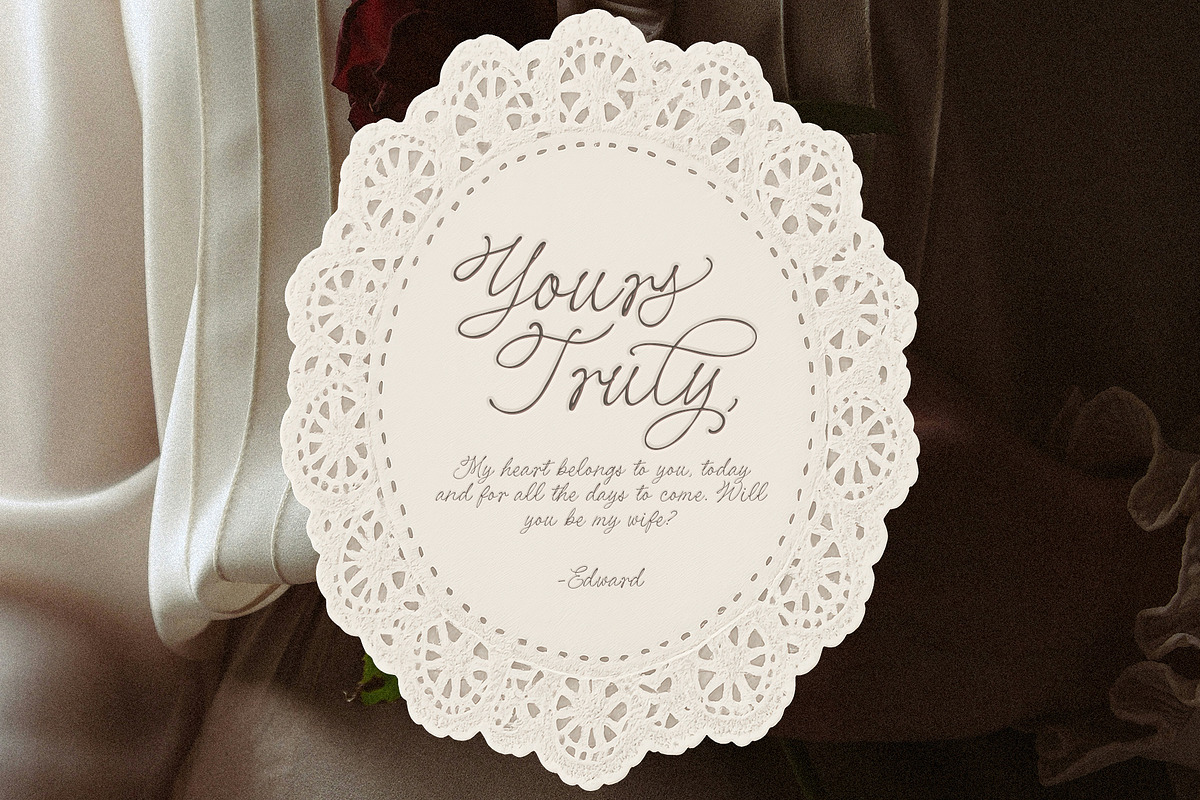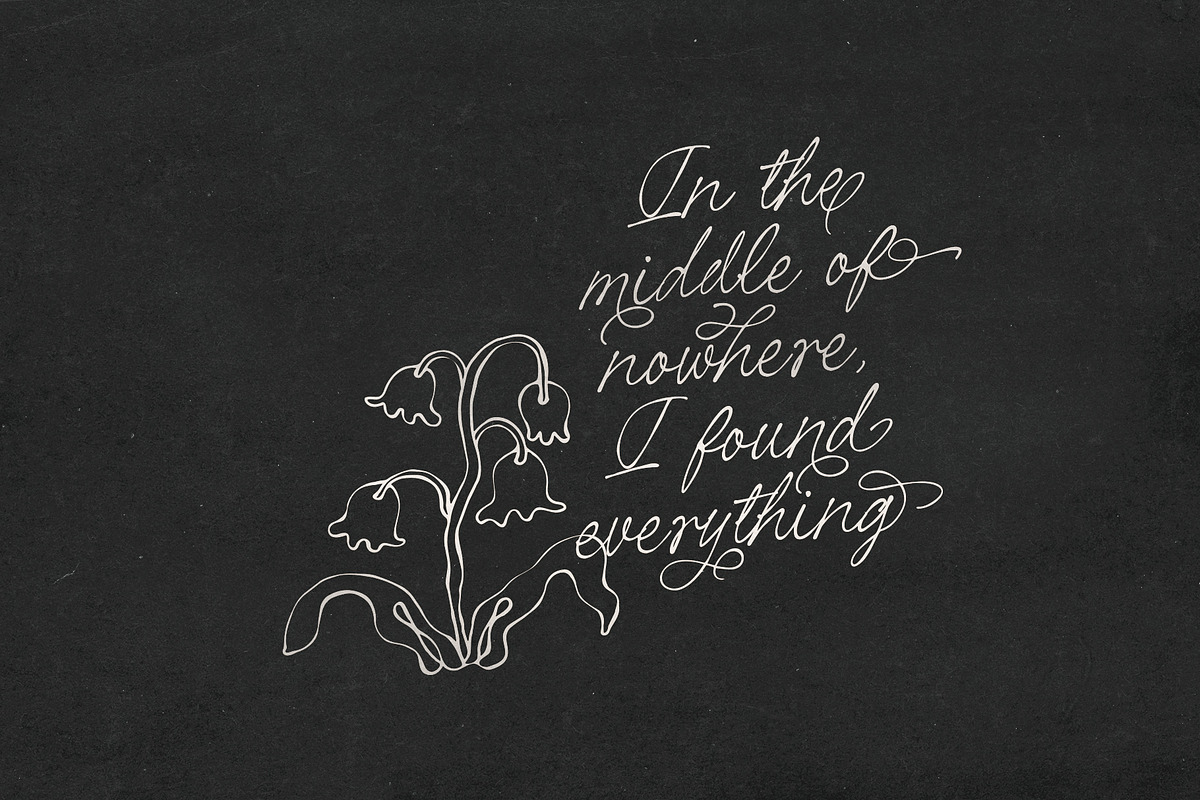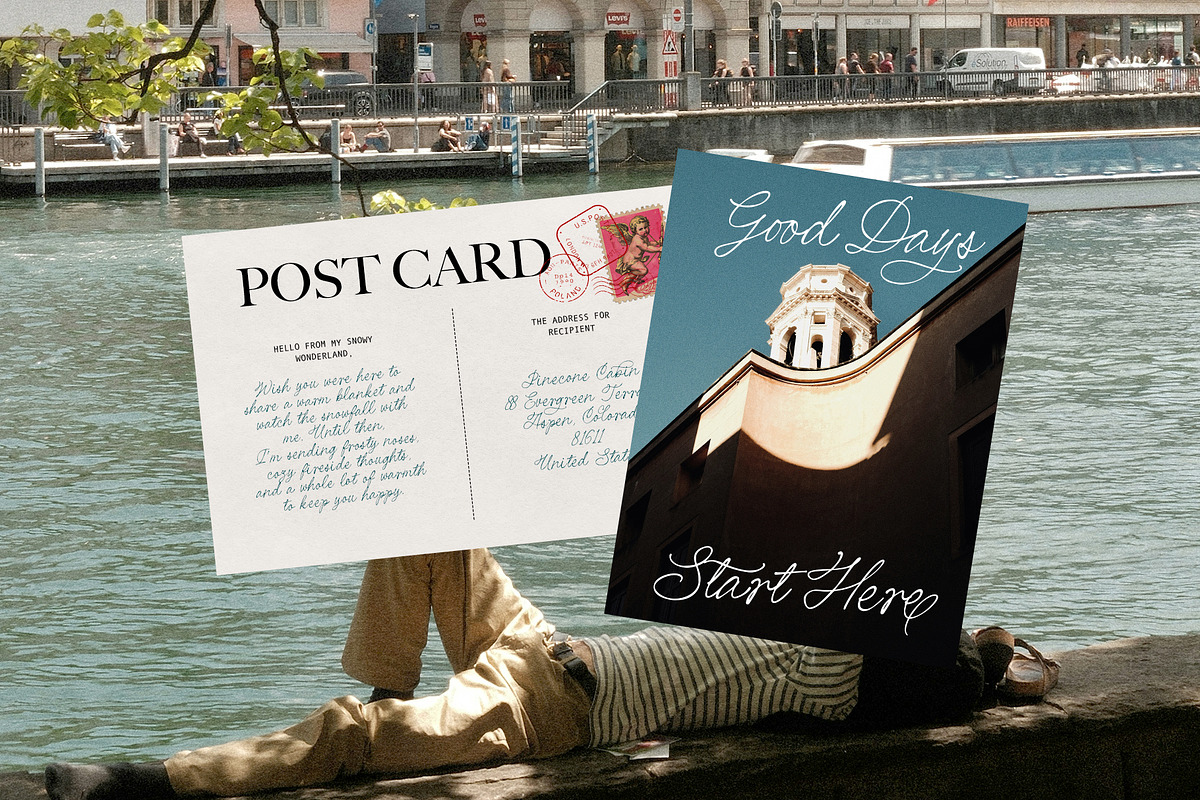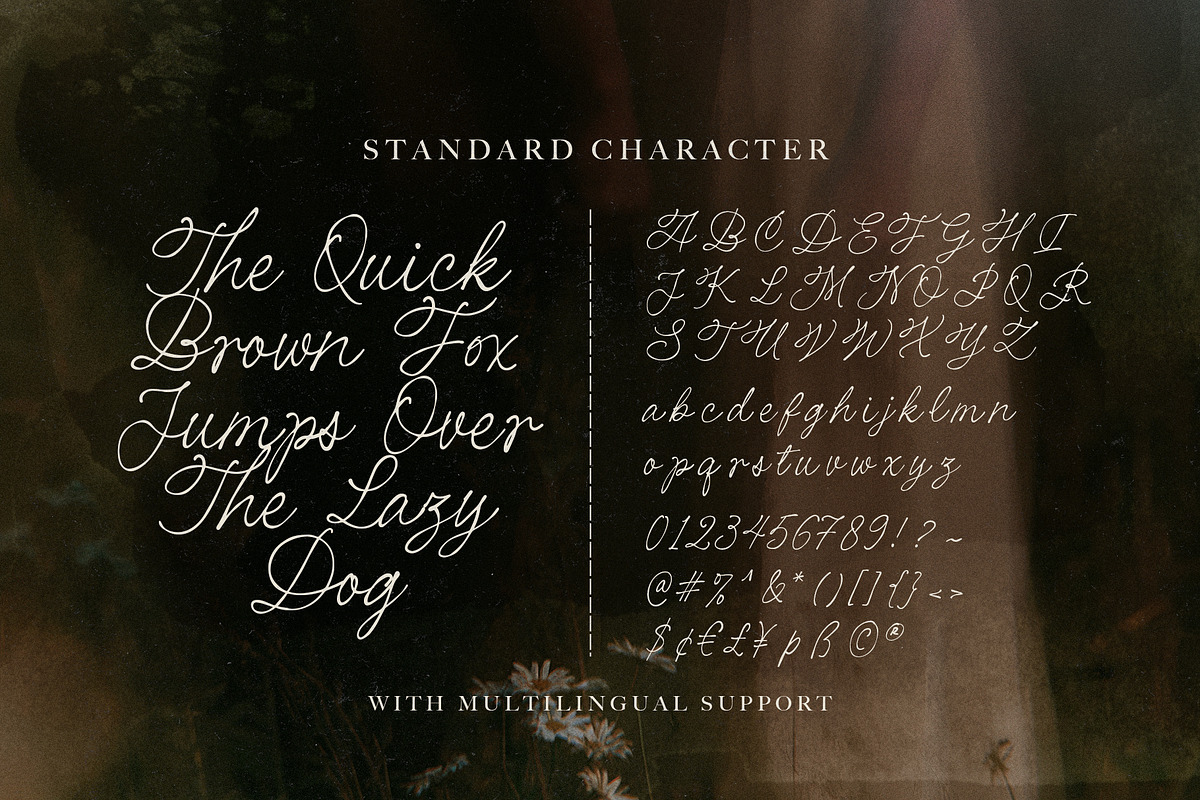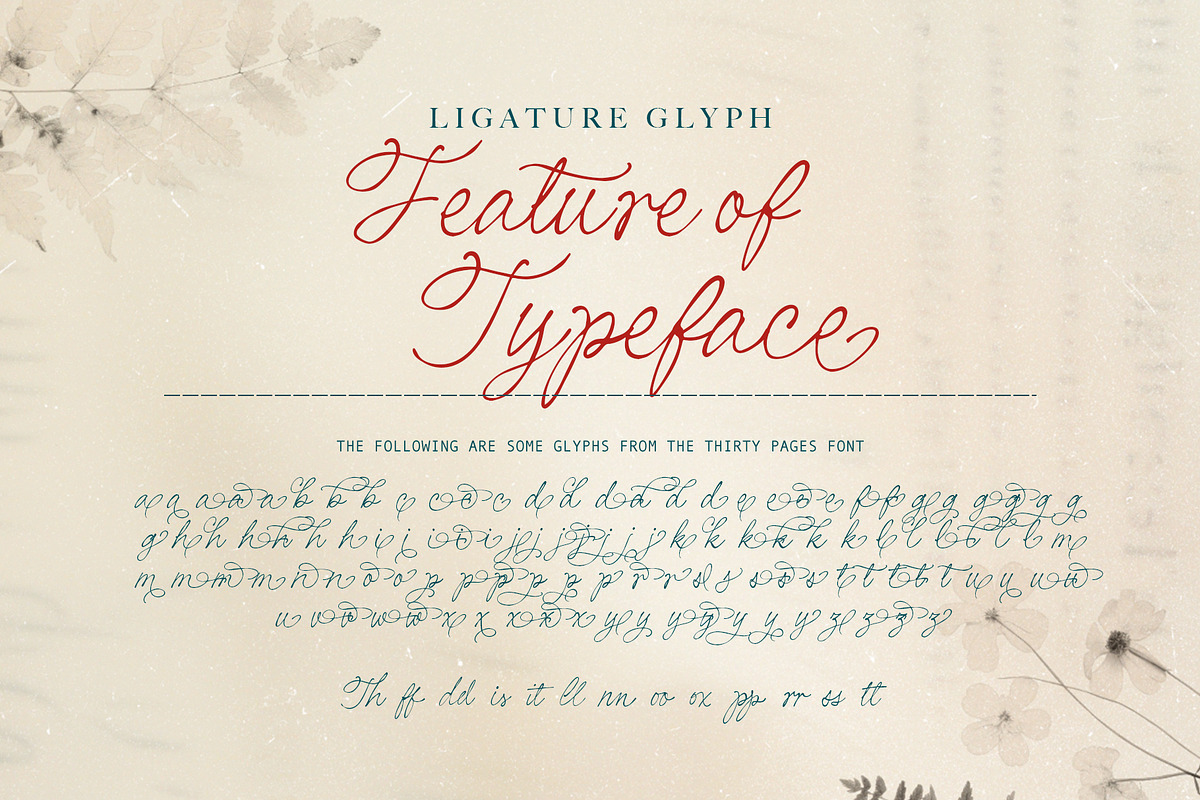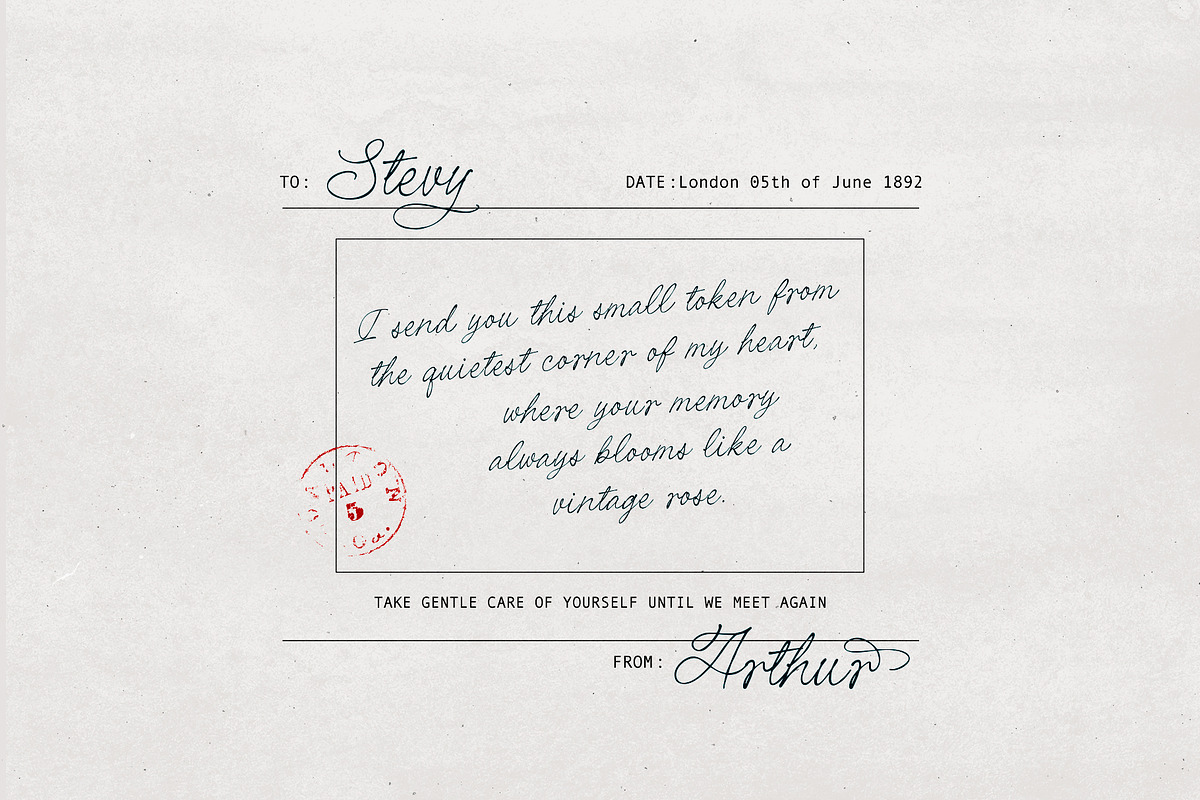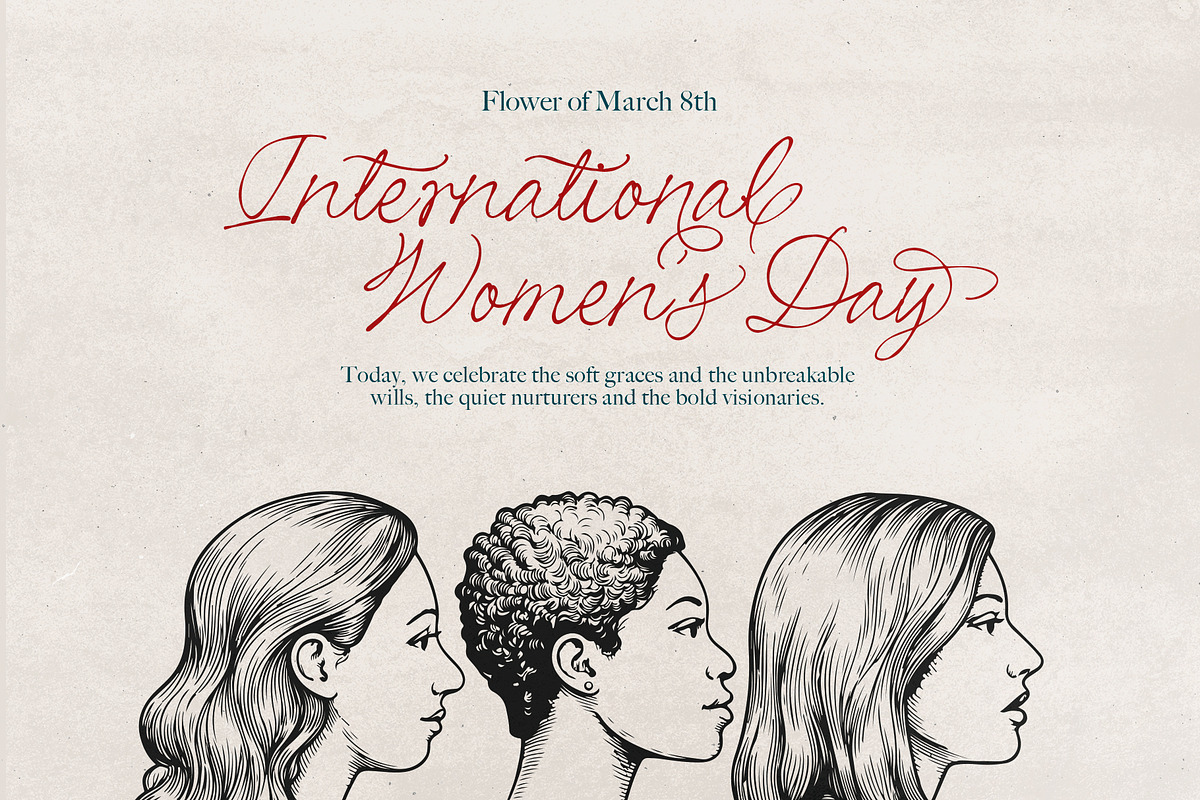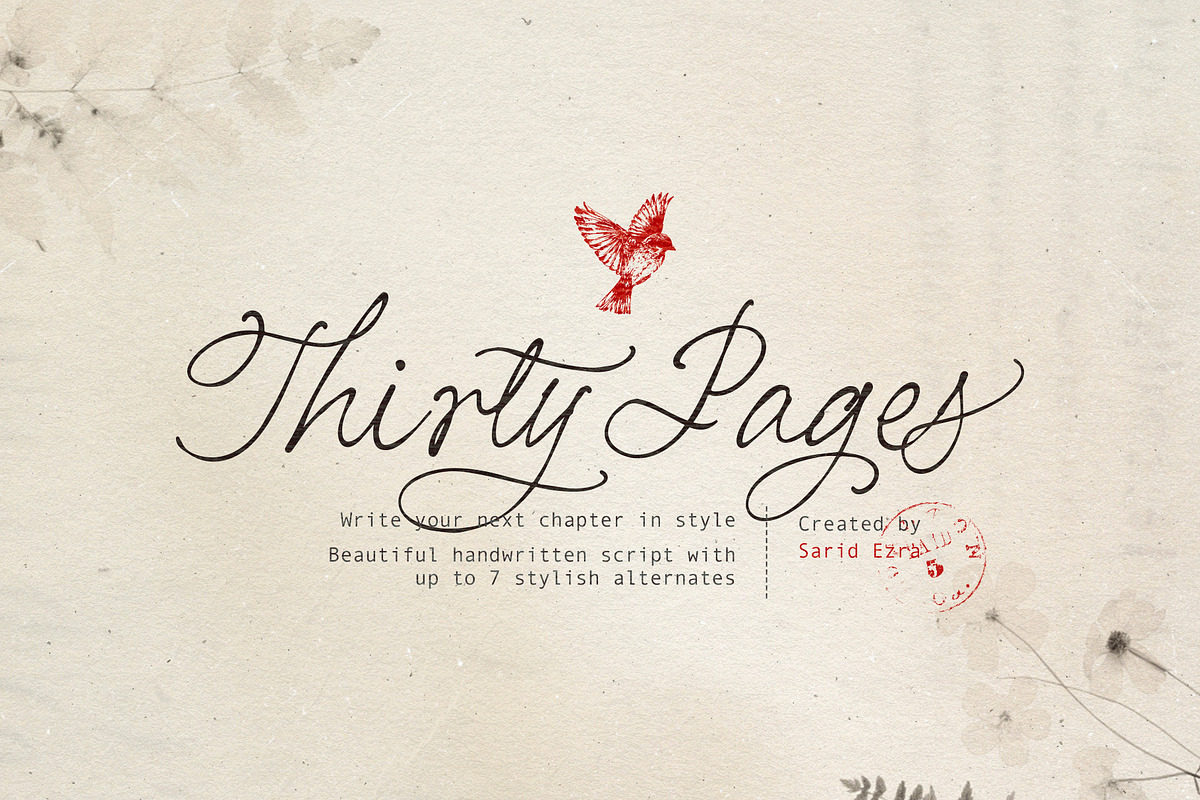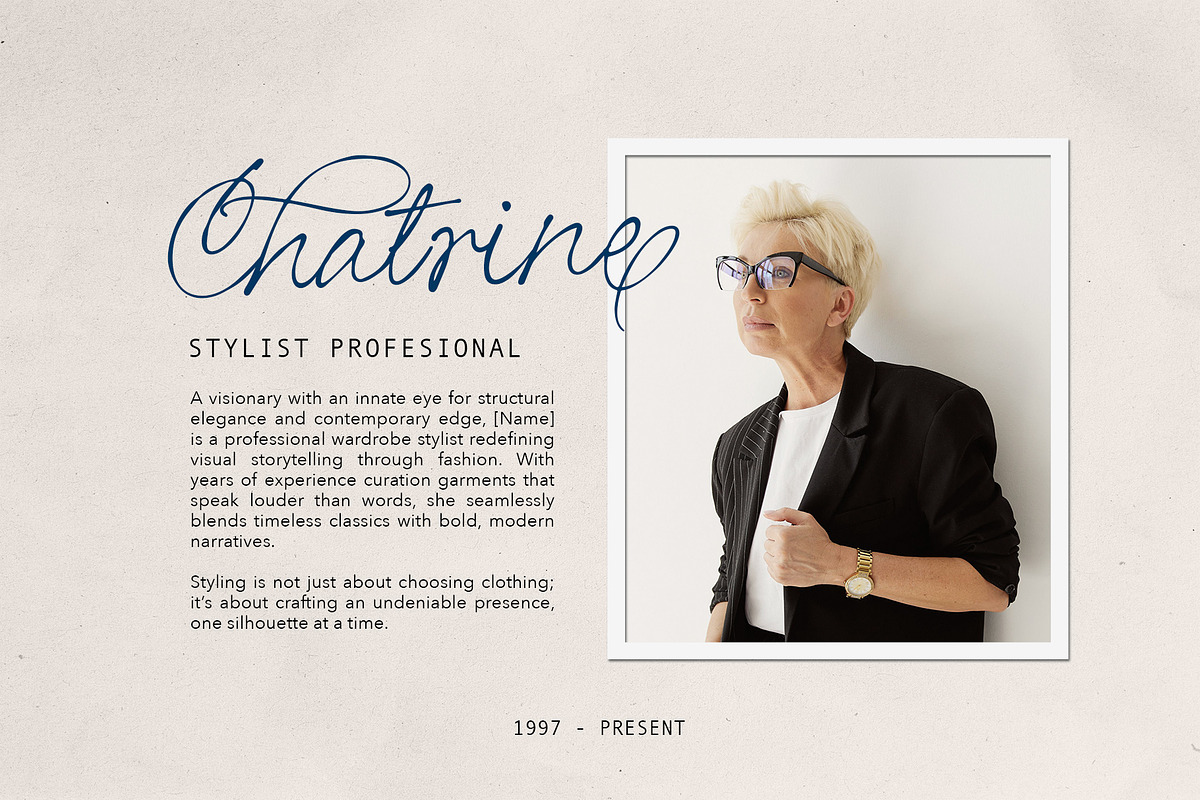
Thirty Pages - Handwritten Script
Introducing Thirty Pages, a vintage handwritten script font with a timeless and rustic charm.
Inspired by classic handwriting, Les Palmiers features a naturally rough and imperfect strokes that gives every design an authentic vintage feel. Complete with beautiful alternates and ligatures, this font offers endless creative possibilities for branding, packaging, logos, invitations, posters, and editorial designs. Its handcrafted character adds warmth, personality, and nostalgic appeal to any project, making your typography stand out effortlessly. This font also support multi language.